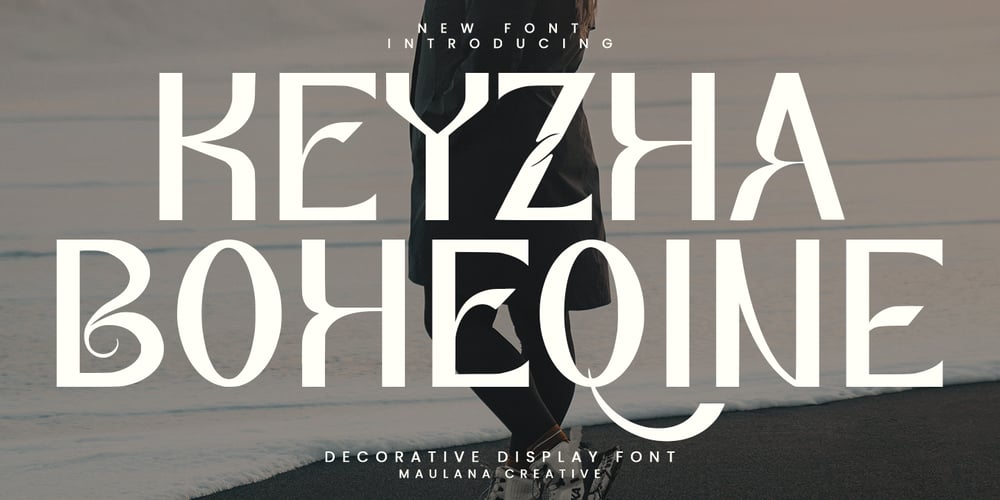
MC Keyzha Boheqine Font Family was designed by Gilang Maulana and published by Maulana Creative. MC Keyzha Boheqine contains 1 styles and family package options. Keyzha Boheqine is a decorative handmade display font. With medium low contrast stroke, vintage character with alternate to give you an extra creative work. Keyzha Boheqine font support multilingual language. This font is good for logo design, Social media, Movie Titles, Books Titles, a short text even a long text letter and good for your secondary text font with sans or serif. Make a stunning work with Keyzha Boheqine font.Cheers,Maulana Creative